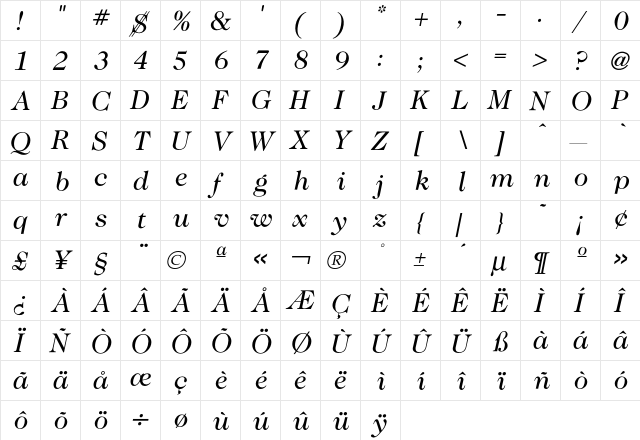
Caslon BookItalic Font Preview
Caslon BookItalic
Caslon BookItalic Font Details
| Style | BookItalic |
Design Context for Caslon Typeface
Caslon offers clean, dependable letterforms without strong stylistic allegiance, making it a practical choice for designers who need flexibility. The dynamic lean of this cut emphasises speed and emphasis in any layout.
Pro Tip: Try Caslon for annotation and caption copy alongside an upright companion — the contrast in angle creates a dynamic but ordered typographic system.